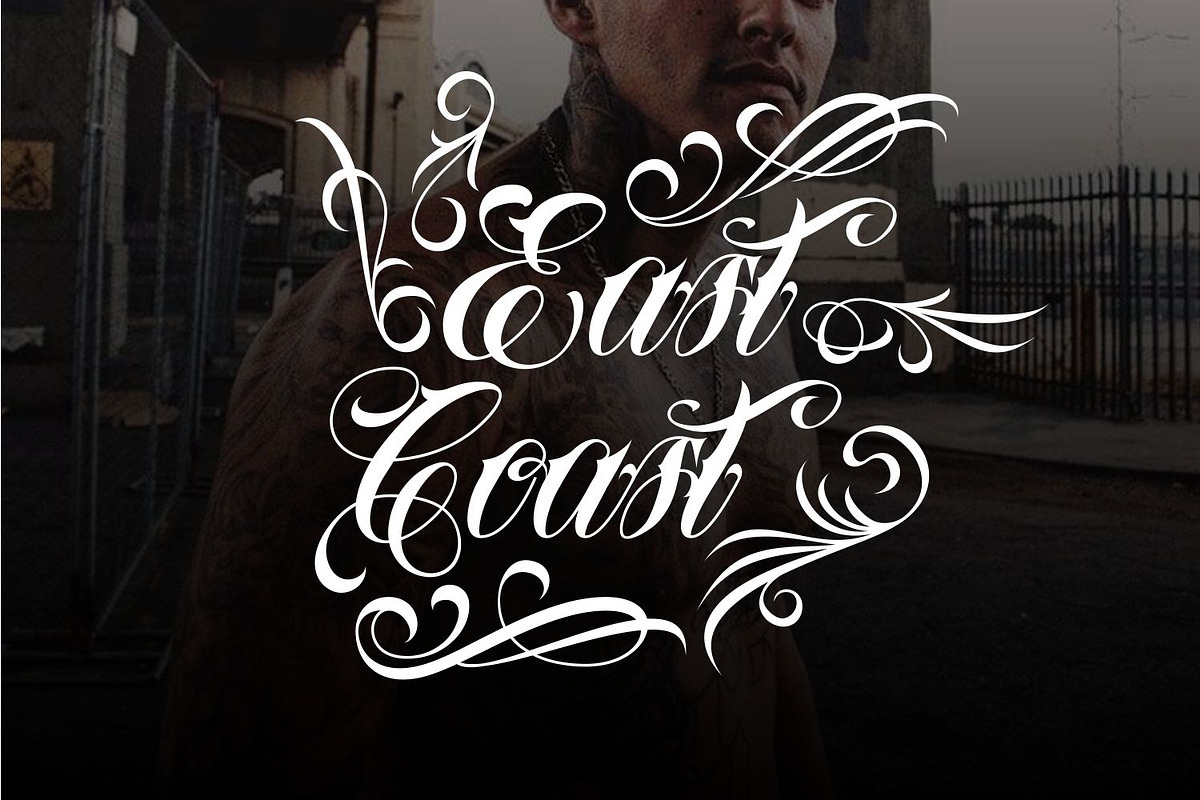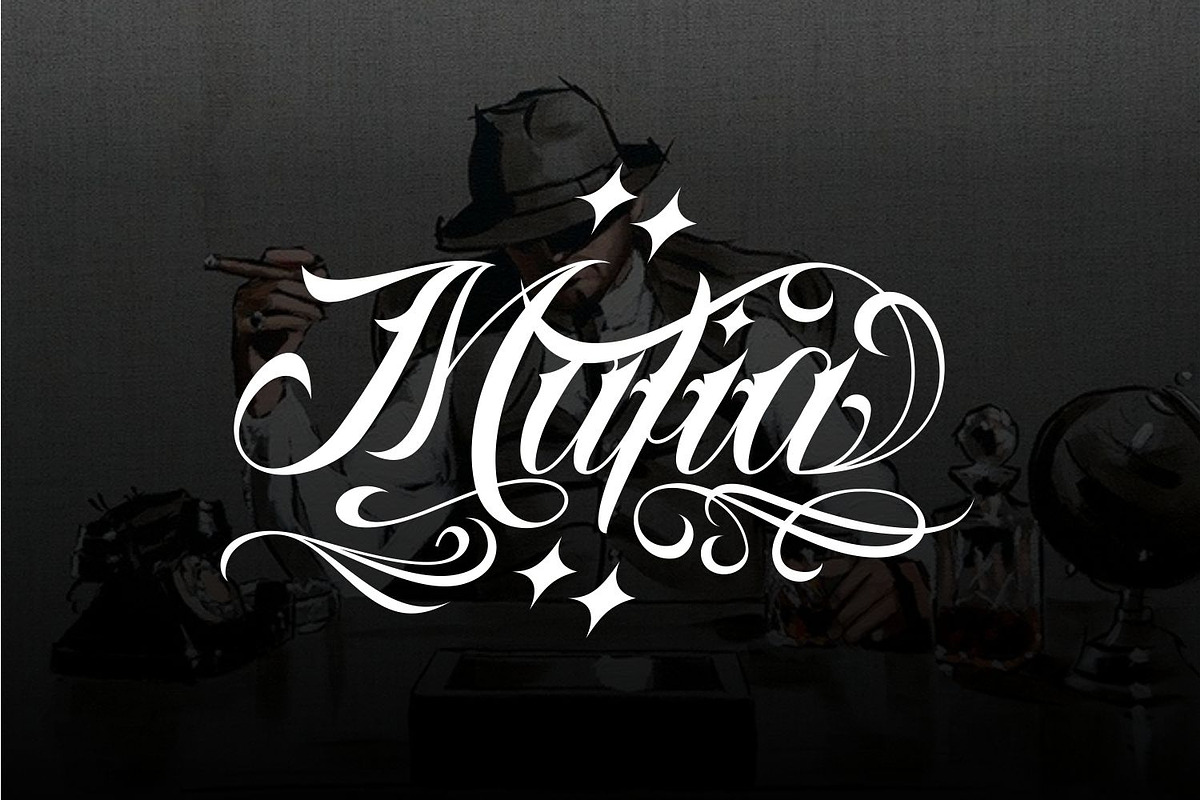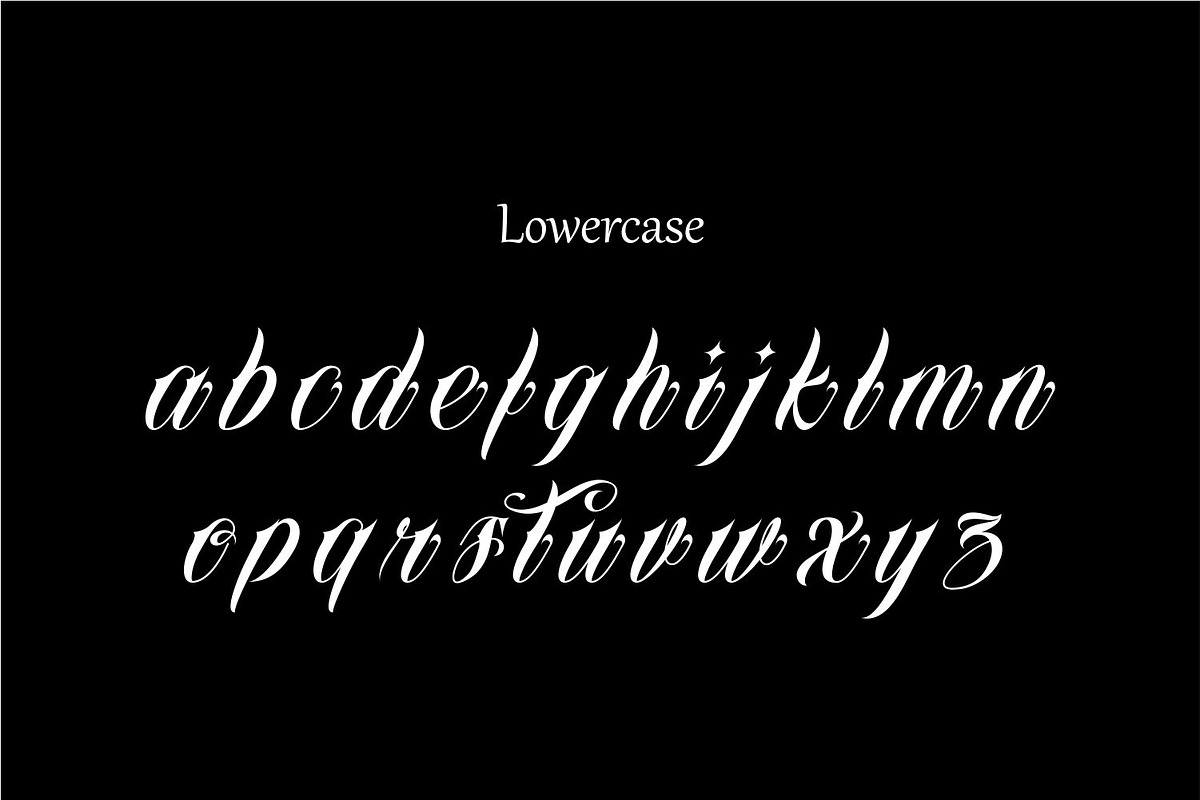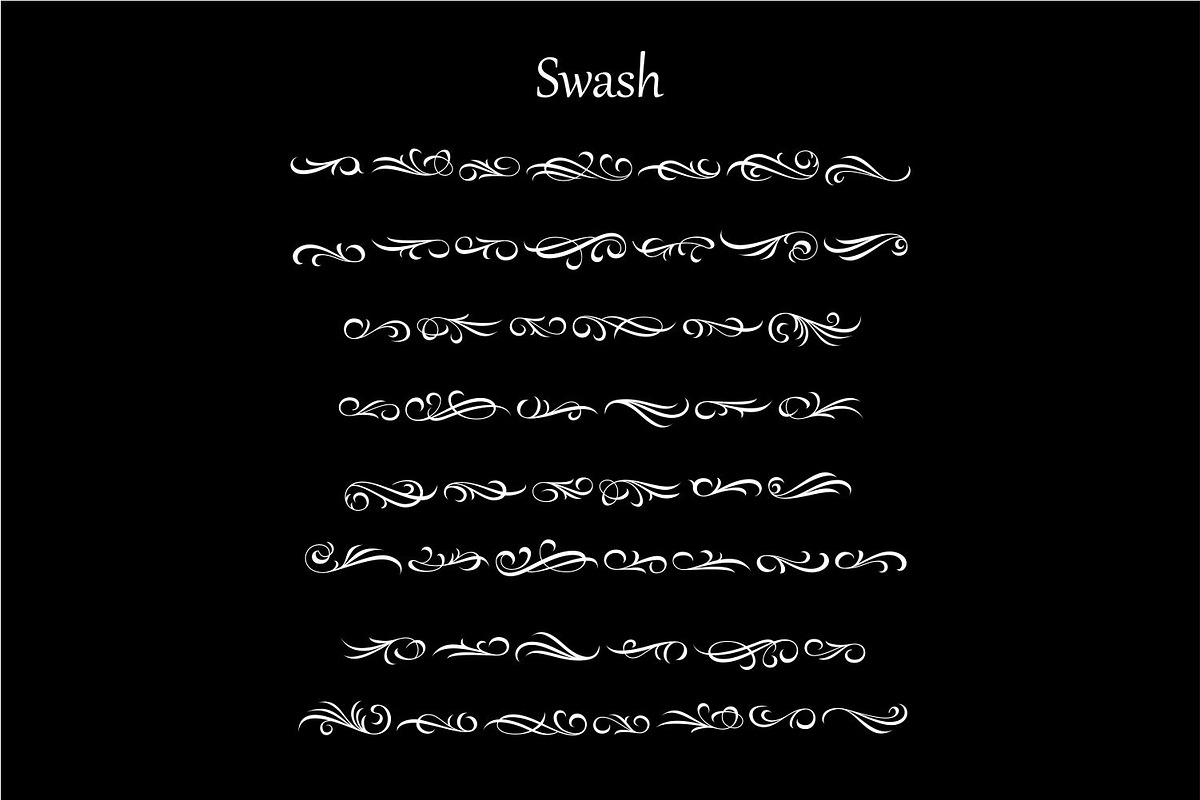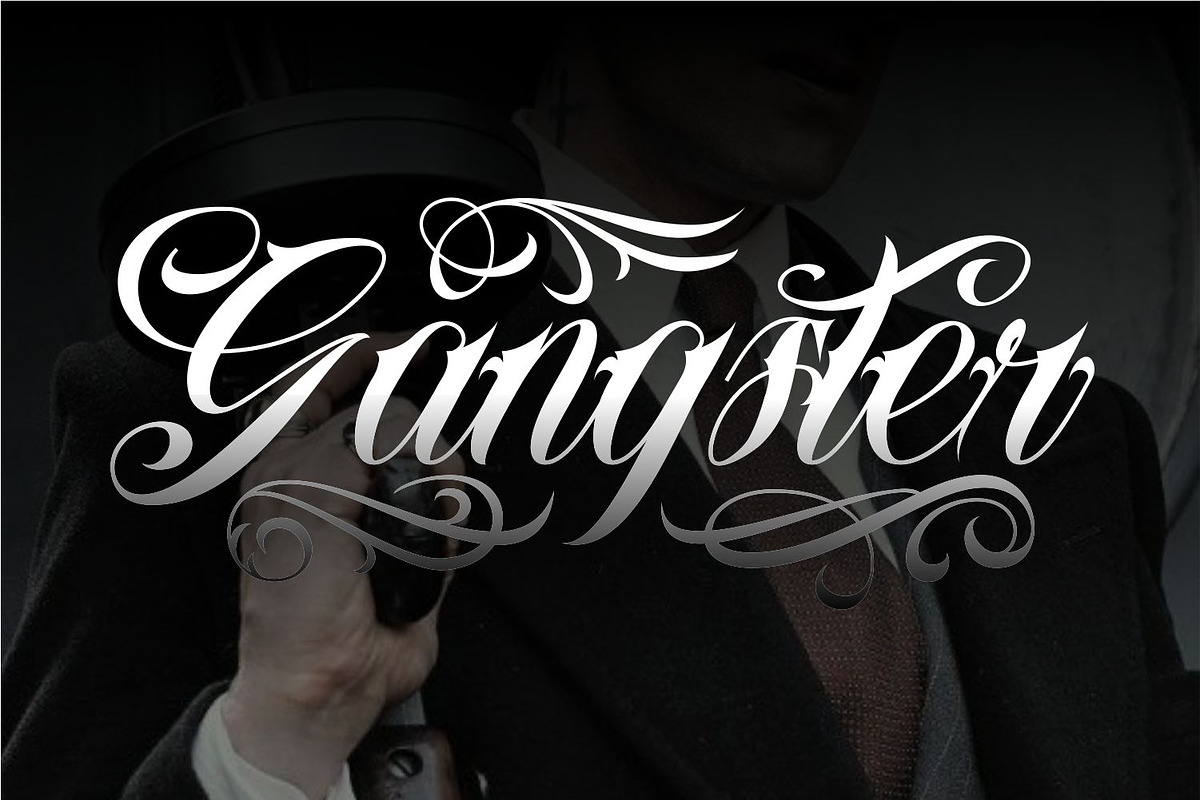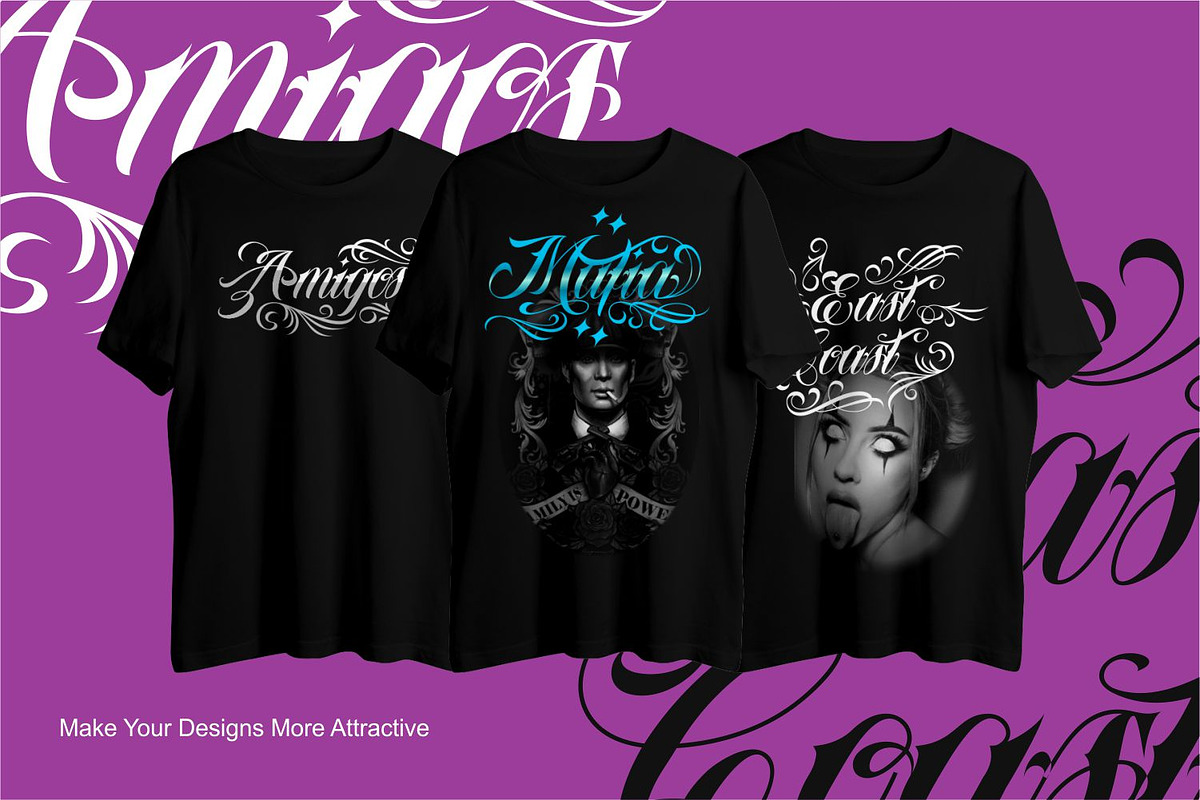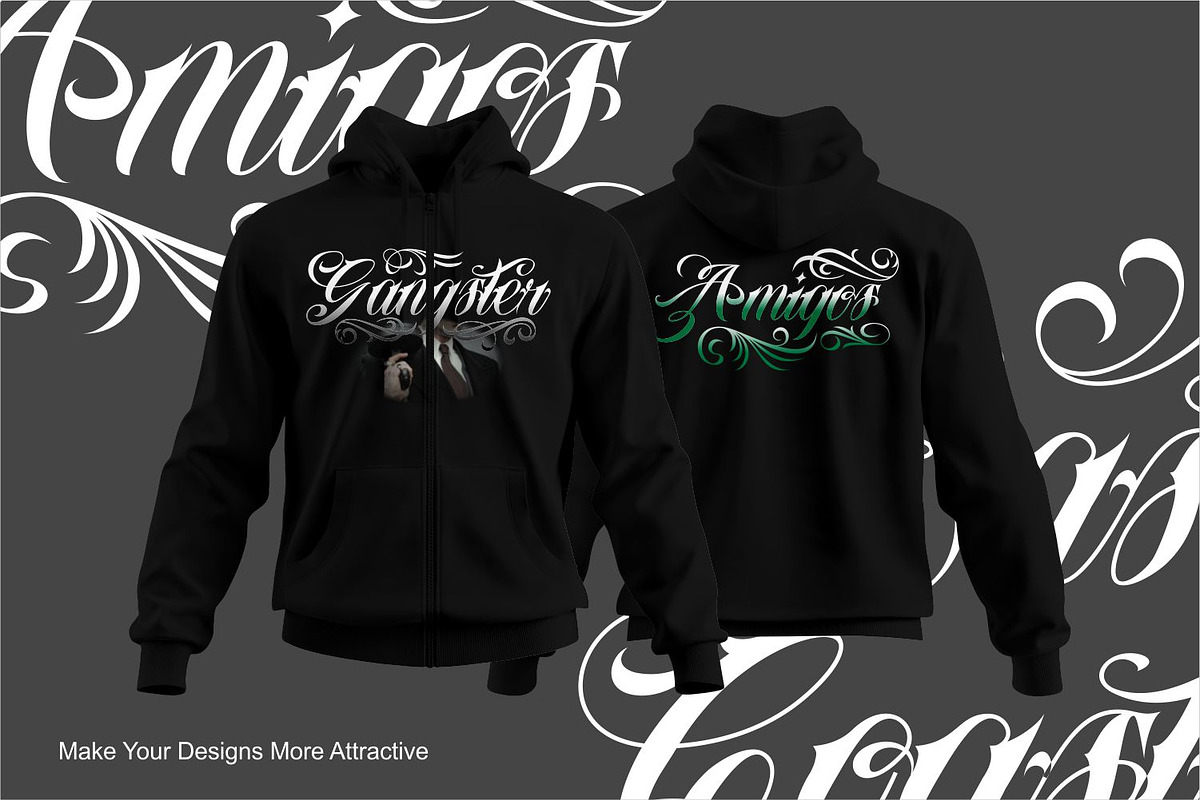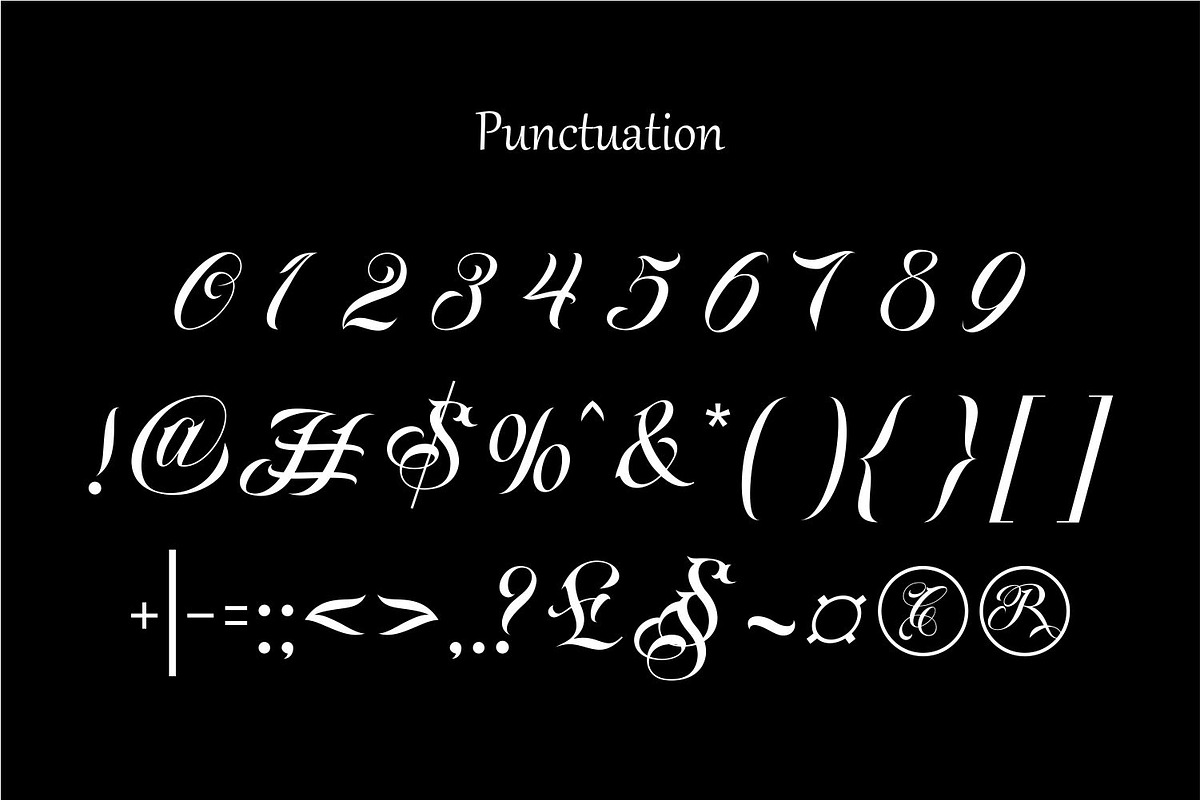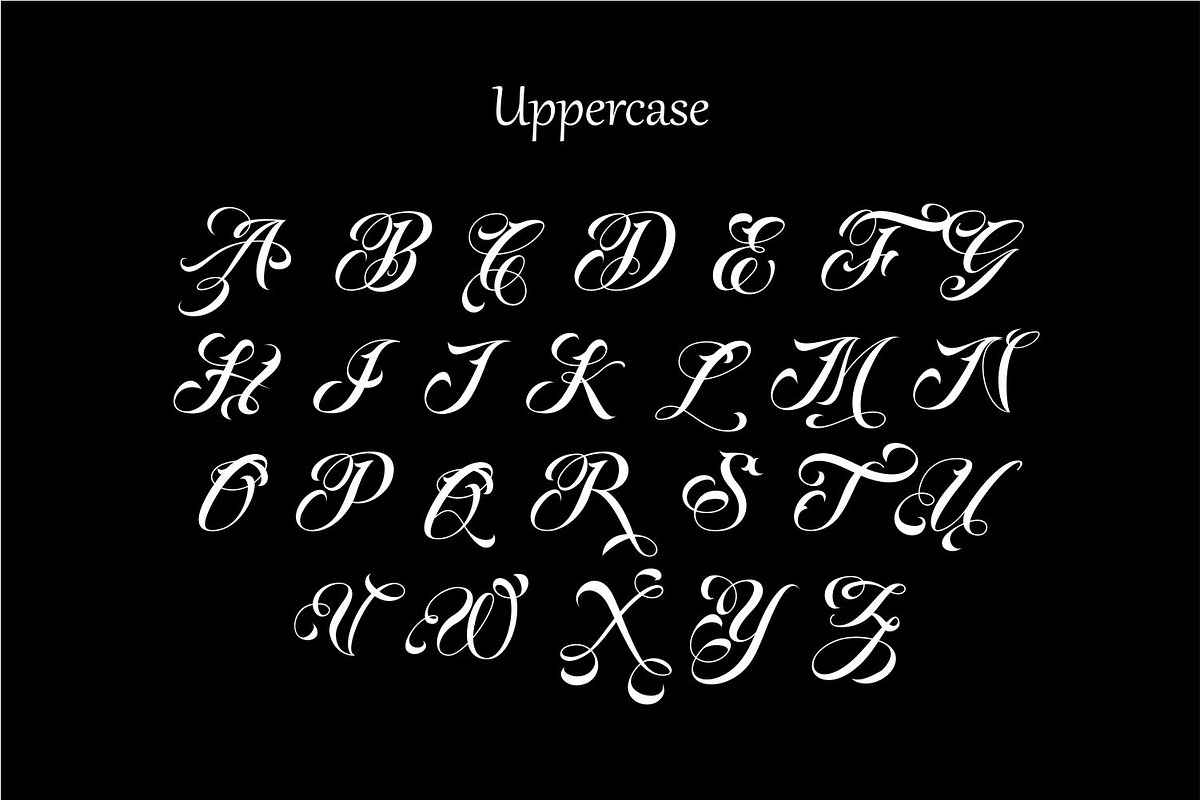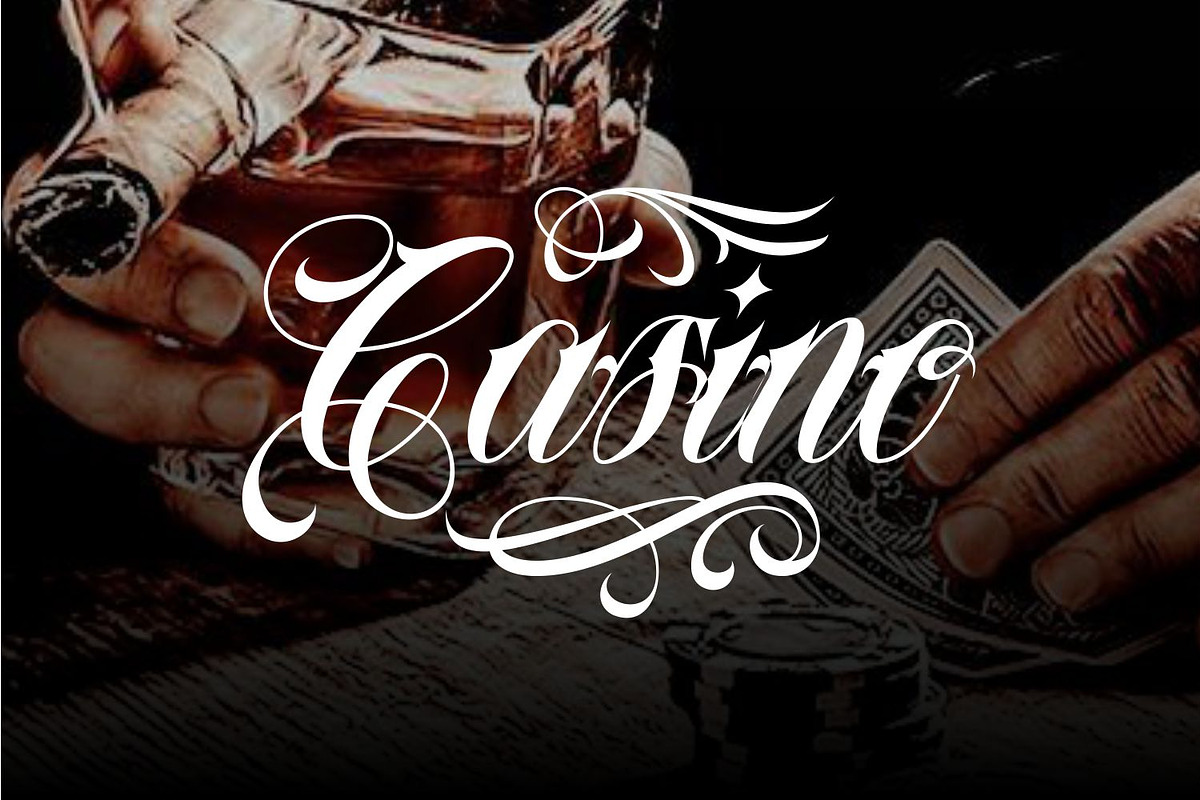
Amigos Chicano Script Tattoo Font
Elevate your design projects with our "Authentic Tattoo Font Bundle | Blackletter, Chicano, Old English Fonts | Procreate & Photoshop Ready | Perfect for Custom Tattoos, T-Shirts", meticulously crafted for artists and designers seeking authentic tattoo-inspired typography. This collection features a diverse range of blackletter calligraphy fonts, perfect for custom tattoo designs, logos, t-shirt prints, and more. Compatible with Procreate and Photoshop, these fonts offer seamless integration into your creative workflow. Each font is designed to provide versatility and uniqueness, ensuring your designs stand out.